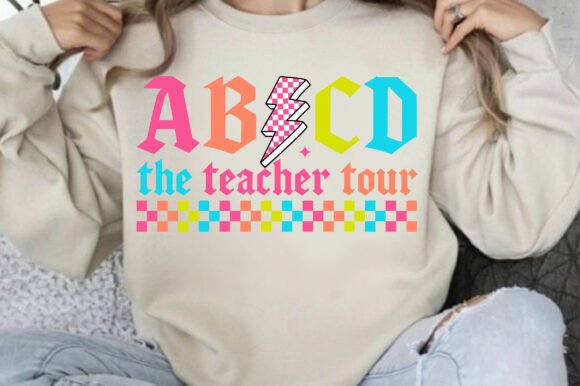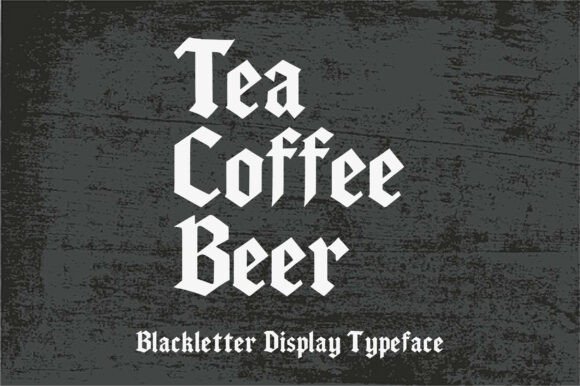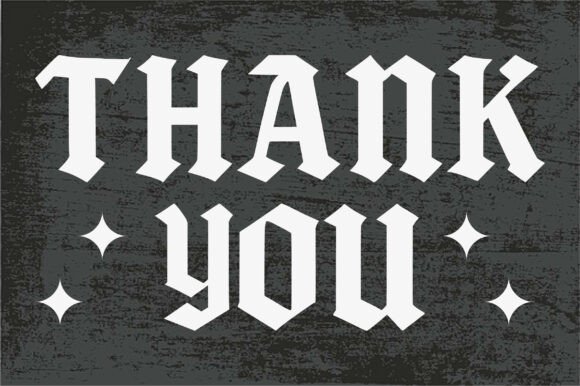
Unleashing the Power of Blackrend Font: A Designer’s Dream Come True
I still remember the frustration of working on a project, pouring my heart and soul into it, only to get stuck on one tiny detail – the font. My client wanted something bold, something Gothic, something that would make their brand stand out. I scoured the internet, tried countless fonts, but nothing seemed quite right. That was until I stumbled upon the Blackrend font. It was like a breath of fresh air – the perfect blend of medieval charm and modern edge. In this article, I’ll share my love for Blackrend, its features, and how to make the most of it in your designs.
First Impressions: What I Love About Blackrend Font
So, what makes Blackrend so special? Here are a few things that caught my attention:
- ✨ Bold and striking: Blackrend is a blackletter display typeface that exudes power and elegance. Its sharp edges and strong strokes give it a classic medieval feel that’s perfect for bold titles and dramatic visuals.
- ✅ Versatile: The font includes uppercase, lowercase, numbers, and punctuation, making it easy to use in any creative project.
- 🔥 Perfect for themed branding: Whether you’re working on a craft brewery, historic-themed merchandise, or a band’s visual identity, Blackrend’s aesthetic is ideal for creating a dark, powerful look.
The Not-So-Perfect: A Few Quirks and Limitations
While Blackrend is an amazing font, it’s not without its quirks. Here are a few things to keep in mind:
- 🤔 Limited use cases: Due to its bold and dramatic nature, Blackrend might not be the best choice for body text or smaller designs. It’s perfect for headlines and titles, but use it sparingly.
- ⚠️ Legibility on smaller sizes: While Blackrend is generally legible, it can get a bit tricky to read when scaled down. Make sure to test it at different sizes to ensure it works for your project.
The Story Behind Blackrend: Designer Inspiration
Blackrend’s design story begins with a passion for medieval typography and a desire to create a modern, bold font that would capture the essence of Gothic architecture. The designer, inspired by ancient manuscripts and illuminated texts, crafted Blackrend to be both elegant and powerful. The result is a font that’s perfect for designers looking to add a touch of drama and sophistication to their work.
| What is the Blackrend font best used for? | Blackrend is perfect for bold titles, dramatic visuals, logos, apparel designs, posters, album covers, tattoo-style graphics, and vintage branding. |
| Does Blackrend support OpenType features? | Yes, Blackrend supports OpenType features, glyphs, and stylistic alternates, making it a versatile font for designers. |
In conclusion, Blackrend is an exceptional font that can elevate your designs to new heights. Its bold, striking appearance and medieval charm make it perfect for a wide range of creative projects. With its versatility, ease of use, and powerful aesthetic, Blackrend is sure to become a favorite among designers, crafters, and creative hobbyists.